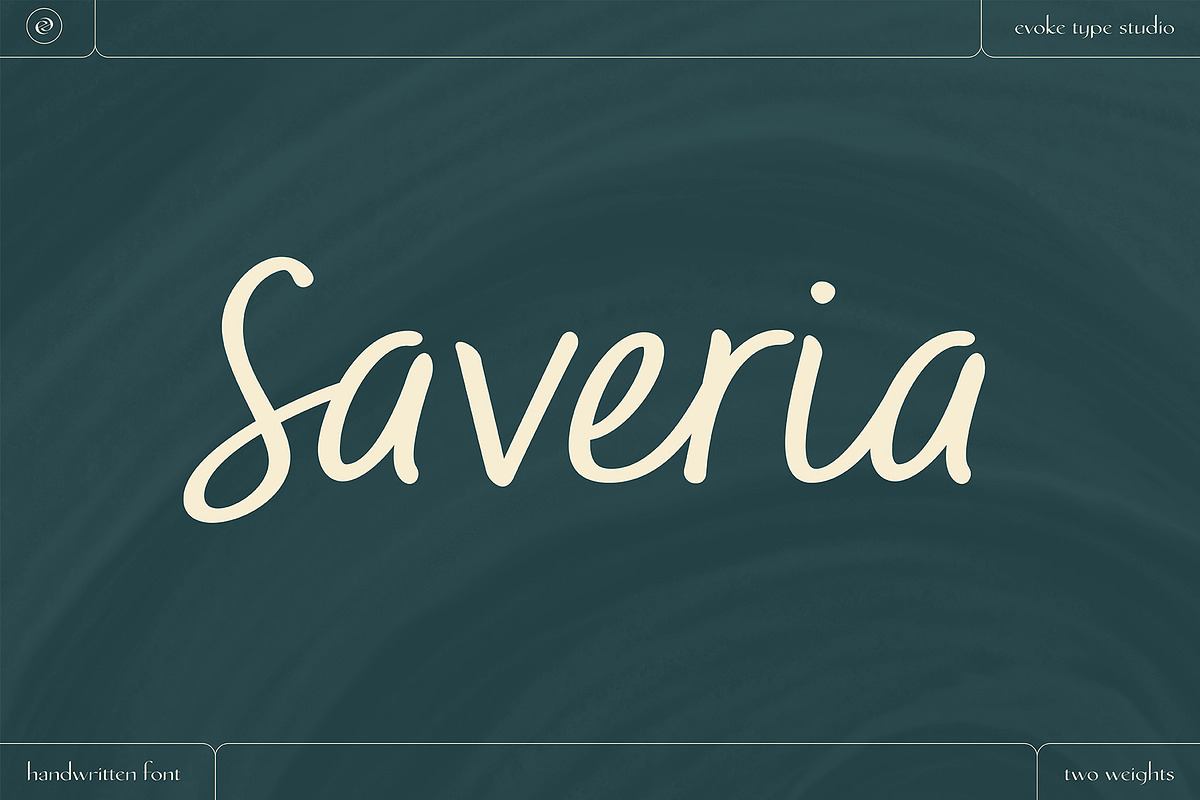
Saveria Handwritten Script Font Free Download
Saveria Handwritten Script Font Free Download is a beautiful and flowing handwritten typeface that brings a personal, elegant touch to your designs. With its smooth curves and stylish strokes, this font is perfect for creating logos, invitations, greeting cards, branding materials, and more. Its elegant script style gives any project a refined and unique appearance, making it ideal for weddings, fashion brands, and creative content. Whether you’re designing a chic logo, crafting a personalized invitation, or working on social media graphics, Saveria Handwritten Script Font Free Download lets you explore its graceful design in personal projects before purchasing a commercial license. Add sophistication and charm to your designs with this exquisite handwritten script font.